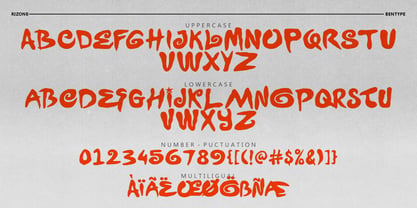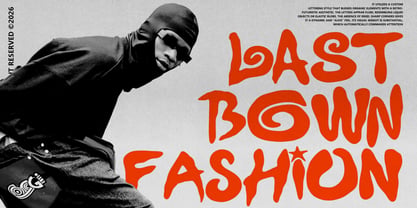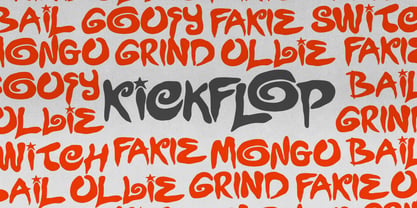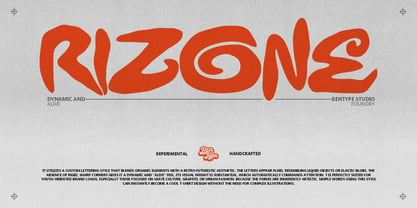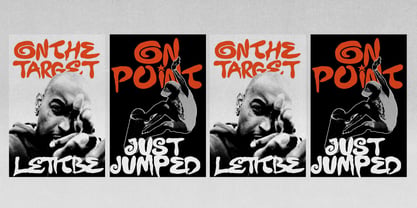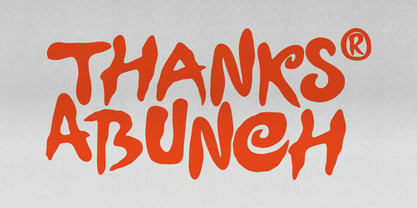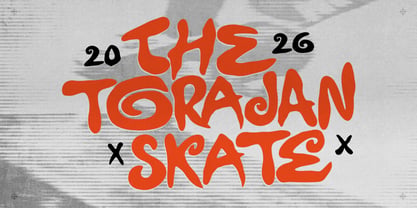
Rizone
by Bentype
The Rizone Font Family was designed by Muhammad Farkhan and published by Bentype. Rizone contains 1 styles. More about this family
Rizone - Dynamic Display Font is all about bold energy and expressive vibes. This custom lettering project merges organic flows with retro-futuristic style, creating fluid, elastic-like shapes that feel dynamic and full of life. Its heavy weight ensures a high-impact presence that’s impossible to miss.
A top-tier choice for streetwear brands, skate culture, and urban fashion. The letters are so artistic on their own that a simple word is enough to make a standout tee. Also perfect for Hip-hop, Funk, or Electronic album art that craves a unique, edgy look.